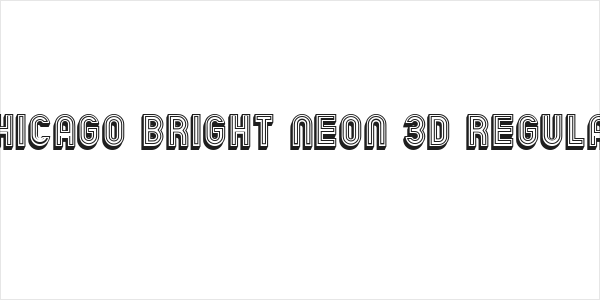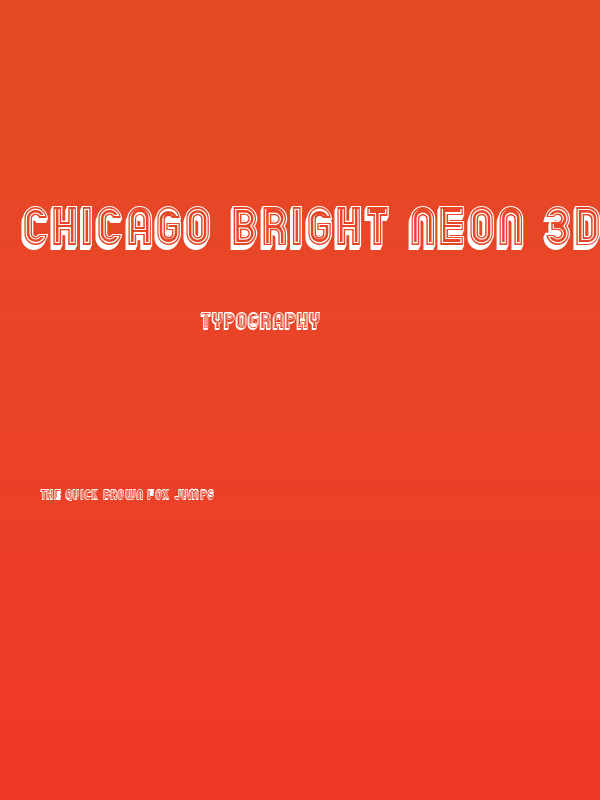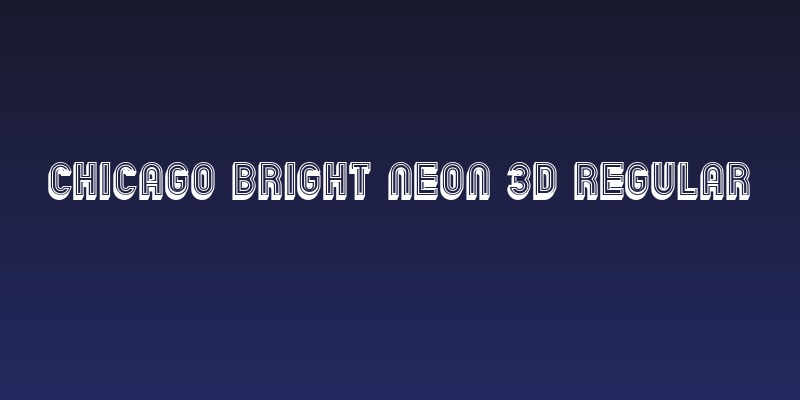
Chicago Bright Neon 3D Regular Font
Chicago Bright Neon 3D Regular Description
This font features a bold, three-dimensional design with a neon-like appearance. The letters are outlined with multiple layers, creating a striking depth effect that mimics neon signage. The uppercase and lowercase characters maintain a consistent style, with clean lines and rounded edges that enhance the 3D illusion. The numbers and special characters are designed to match the bold and vibrant aesthetic, making them stand out prominently. This font is ideal for projects that require a modern and eye-catching display, such as posters, advertisements, and digital graphics.
| Proposed Projects | Ideal for posters, advertisements, digital graphics, and any project needing a modern, eye-catching display. |